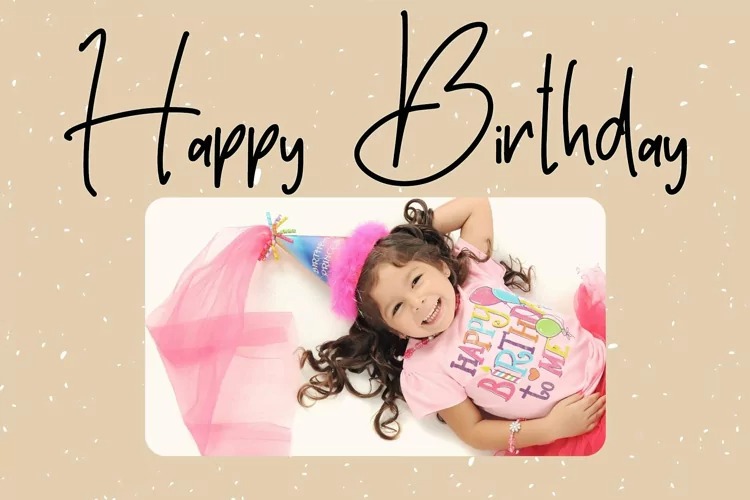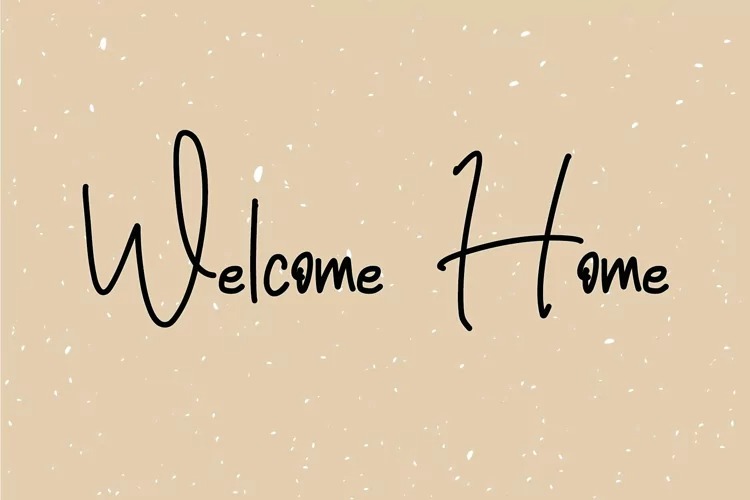
The Rangnick Font
The Rangnick Handwritten Font
It’s a handwritten font with stylish monoline script and very suitable for your beautiful projects. Its natural and unique style makes it incredibly fitting to a large pool of designs. The Rangnick Font is perfect for branding projects, logo, wedding designs, social media posts, advertisements, product packaging, product designs, label, photography, watermark, invitation, stationery and any projects that need handwriting taste.